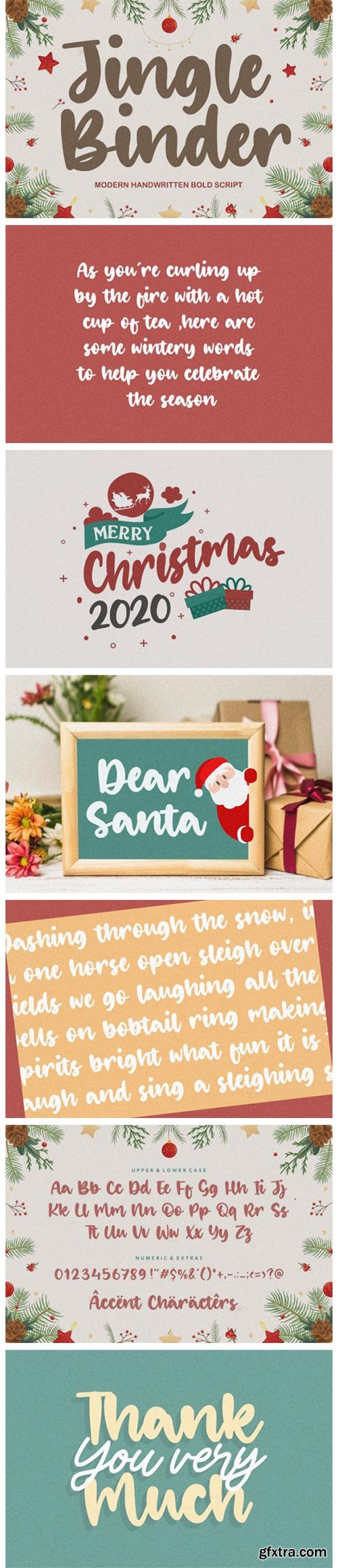
Jingle Binder Font
Jingle Binder is a flowing handwritten font, described by an elegant touch, perfect for your favorite projects. Fall in love with its incredibly distinct and timeless style and use it to create spectacular designs!